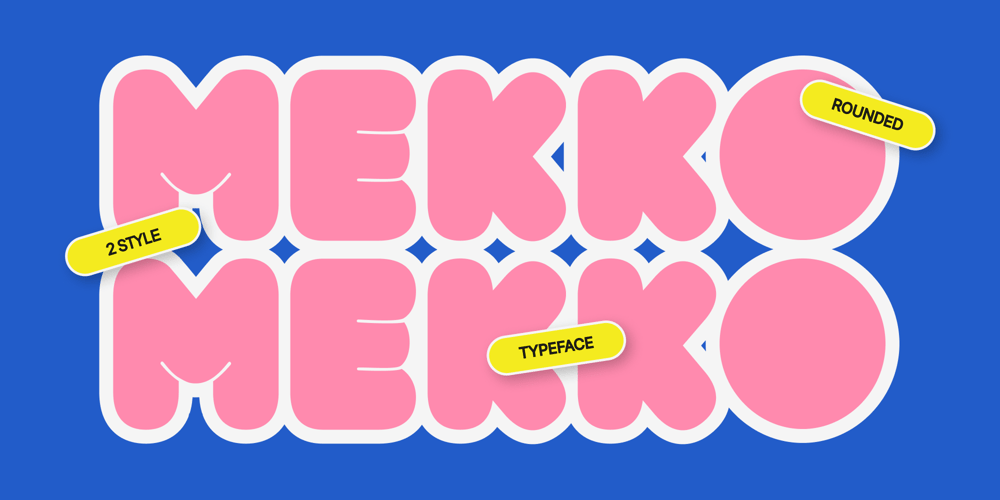
Mekko
Mekko font
Mekko Font Family was designed by Moch Fitrah Hidayat and published by Fitrah Type. Mekko contains 2 styles and family package options. Mekko is the newest typeface with a rounded style. Character Inspired By Retro and Bold Typeface. The entire typography has been designed to work on large sizes. This font is good to use on posters, zines, stickers, and t-shirts.We highly recommend using a program that supports OpenType features and Glyphs panels such as Adobe Illustrator, Adobe Photoshop CC, Adobe InDesign, or CorelDraw, so you can see and access all Glyph variations.